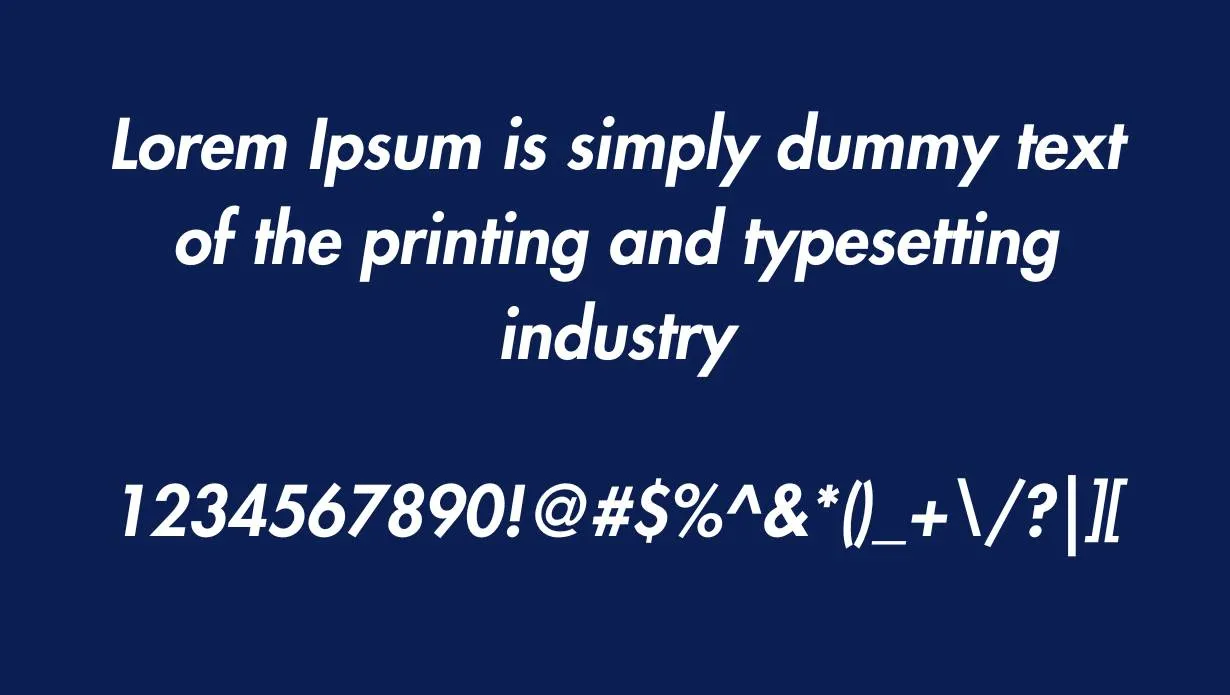
Futura Oblique Font is a modern and versatile typeface known for its clean lines and geometric design. It’s commonly used in tech-related design projects, web design, and digital interfaces.
| Name | Futura Oblique Font |
| Designer | Paul Renner |
The font’s clarity and minimalist letterforms convey a sense of innovation and efficiency in design work.